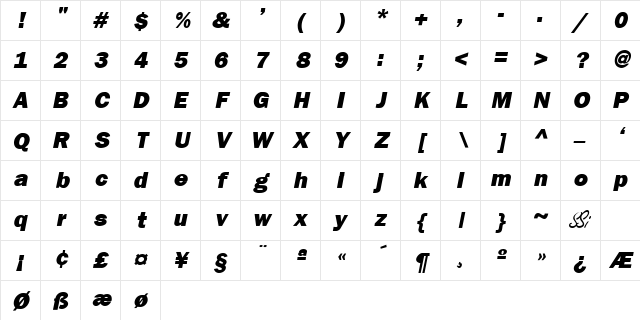
Complete Franklin Gothic Black SSi Extra Bold Italic glyph index. Displaying only characters natively supported by Franklin Gothic Black SSi Extra Bold Italic font.
Franklin Gothic Black SSi takes a clean, functional approach - its unadorned letterforms prioritise legibility and work reliably across screen and print environments. The slanted form adds forward momentum and visual energy. Its bold stroke weight gives it real presence on the page.
Font Pairing: Use Franklin Gothic Black SSi for headlines alongside a lighter-weight sans or serif for body copy to establish clear visual hierarchy.
Pro Tip: Use Franklin Gothic Black SSi for UI labels, navigation, and short-form body copy where clean legibility is the priority.